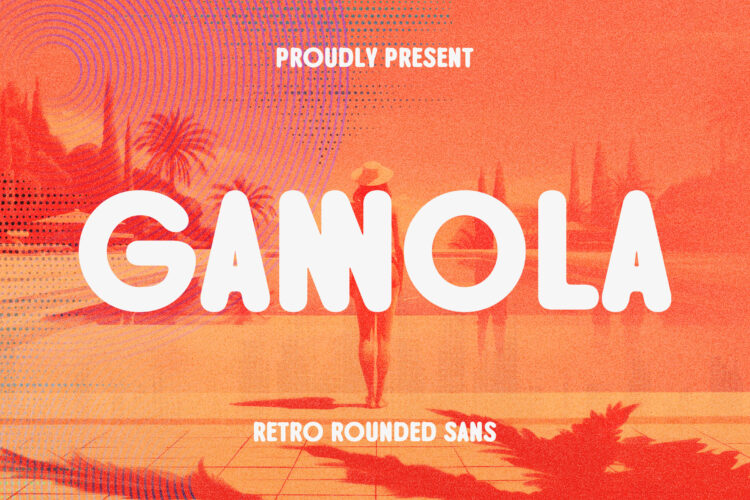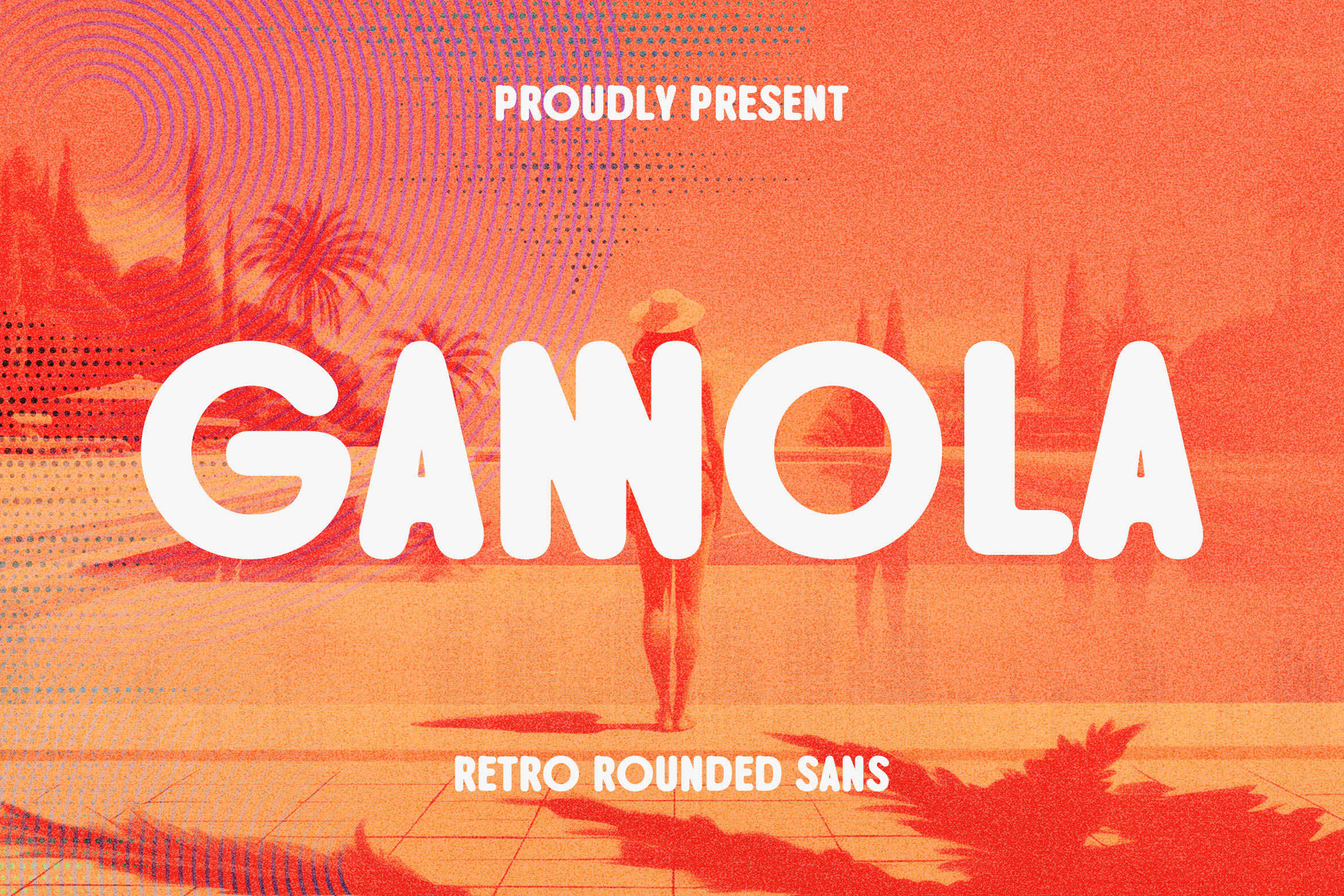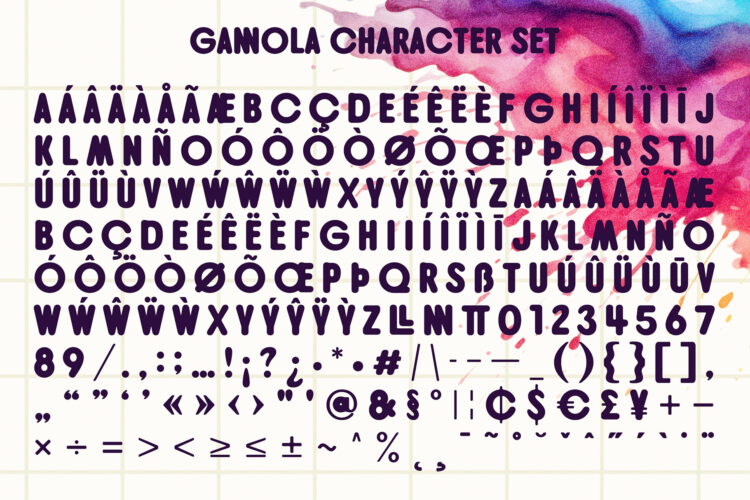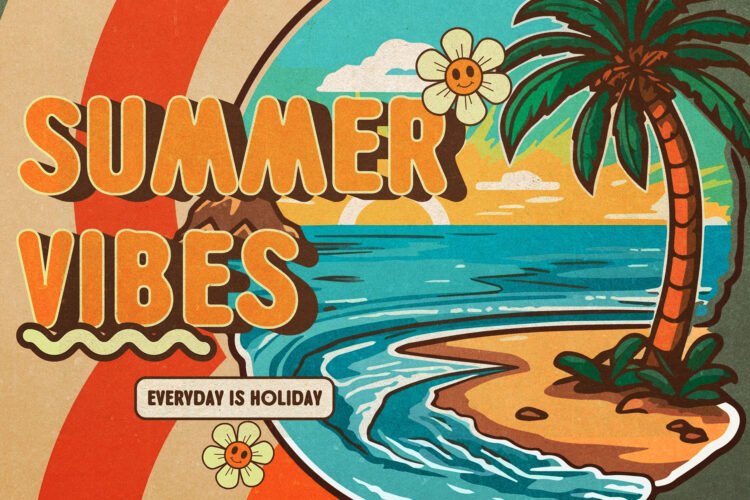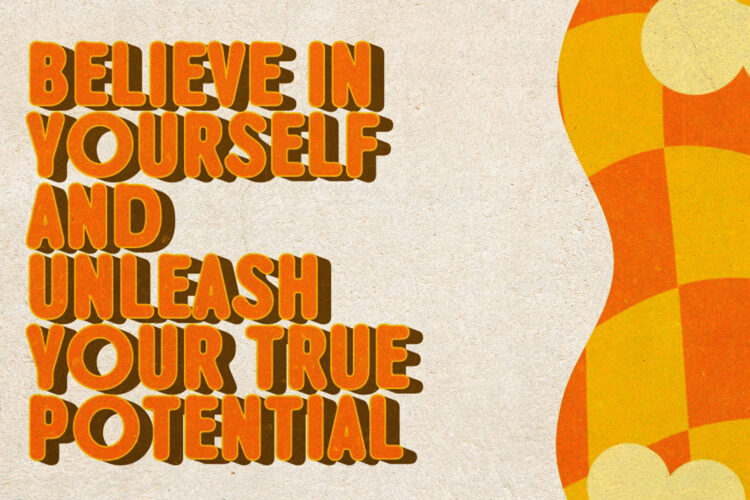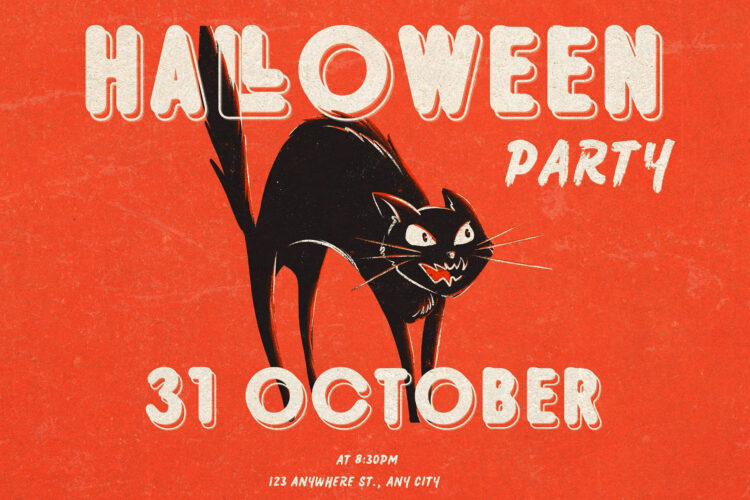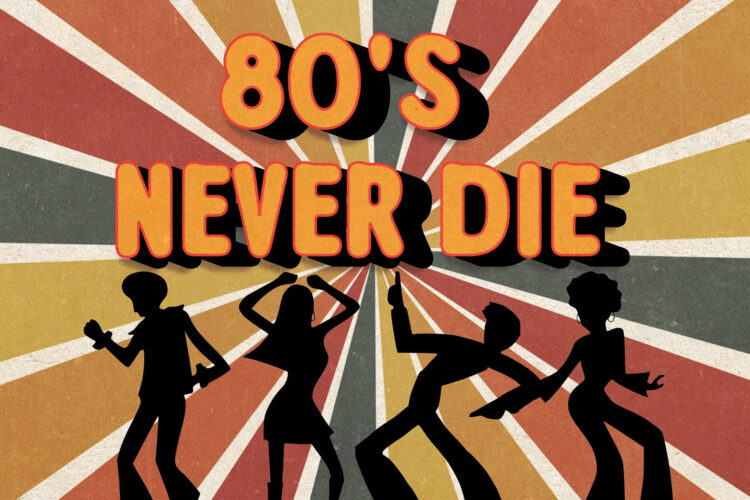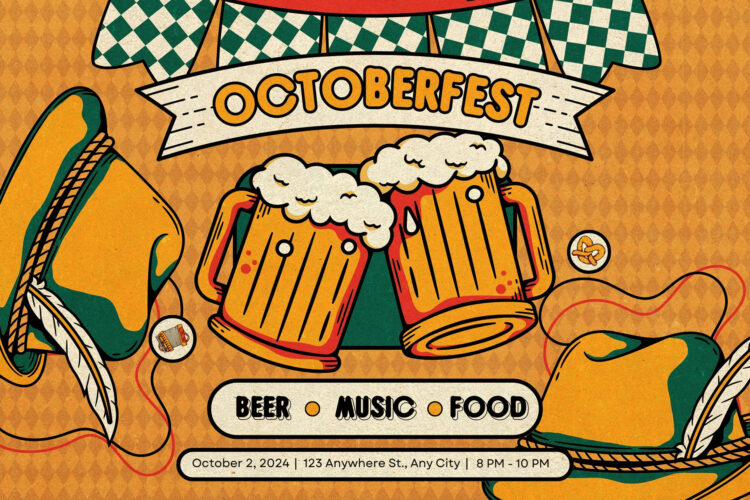
Introducing our new Gannola, Retro Rounded sans serif font with elegant style this is perfect for branding, logos, invitation, magazines, product packaging and more.
– Ligatures
– Symbols
– Multilingual Support
Gannola – Retro Rounded Sans